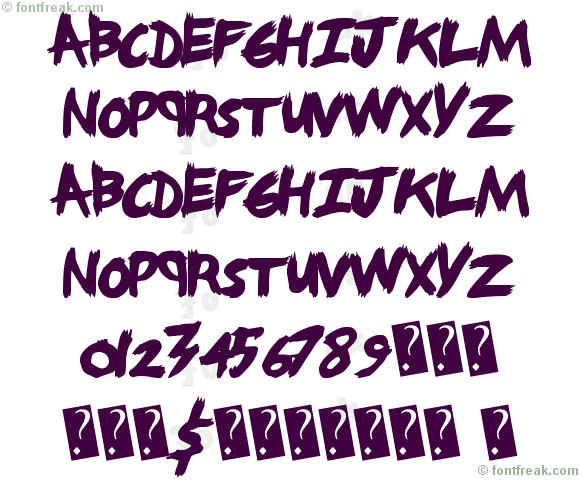
AngryNerds
AngryNerds by XEROGRAPHER FONTS is a striking display font that captures attention with its bold, hand-drawn aesthetic. This unique typeface falls into the decorative category, characterized by its expressive and energetic strokes. The font features a thick stroke weight with a rough texture that conveys a sense of raw emotion. The irregular line quality and varying widths create an eye-catching contrast, making it perfect for designs that demand a strong visual impact. The spacing is dynamic, allowing for a lively feel that suits a range of creative applications.
Ideal use cases for the AngryNerds font include movie posters, where its edgy style can evoke excitement and intrigue, as well as band merchandise, where it can communicate a rebellious spirit. It’s also well-suited for urban art projects, social media graphics, and even gaming-related designs, appealing to a youthful audience with a penchant for creativity. Graphic designers, small business owners, and content creators looking to infuse their work with personality will find this font particularly beneficial.